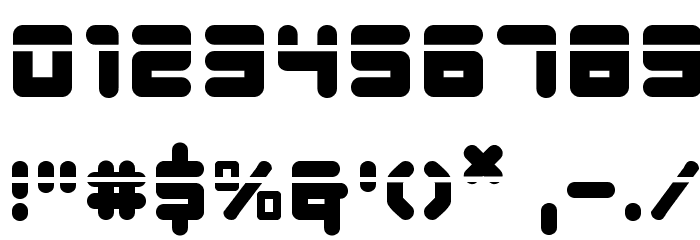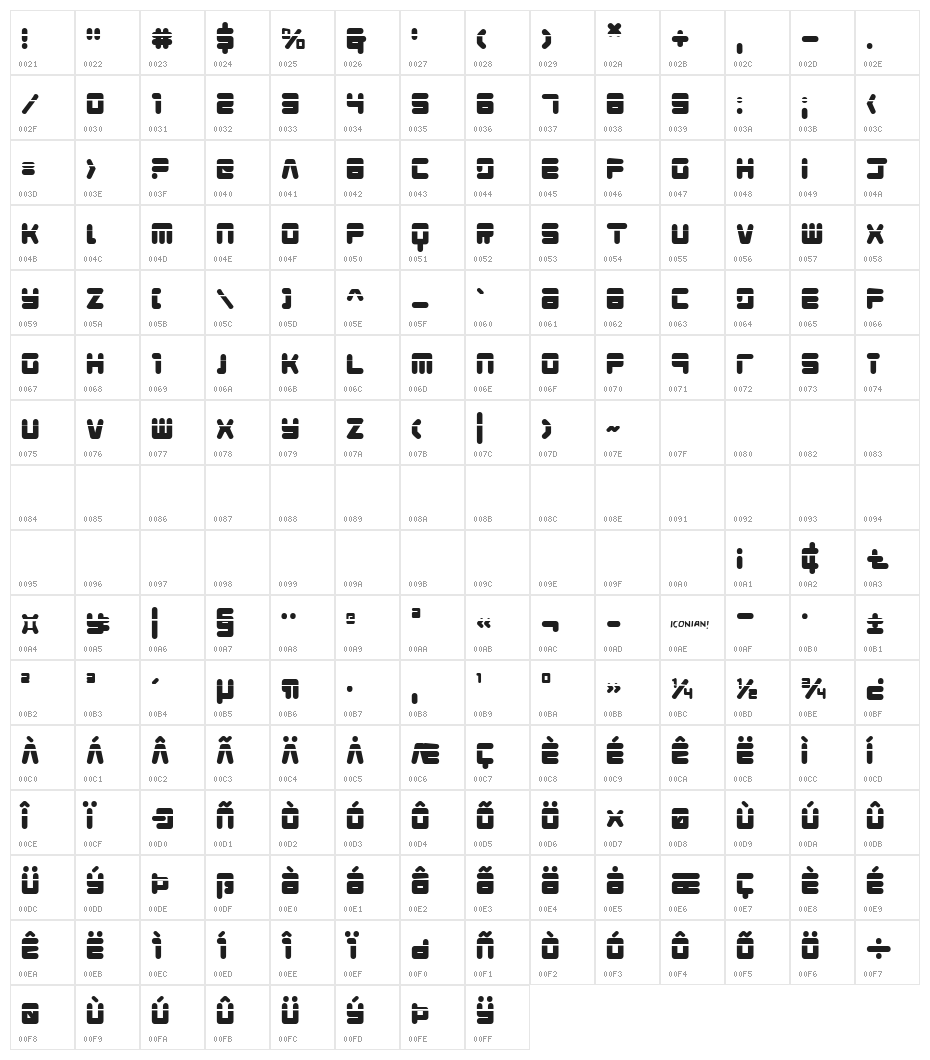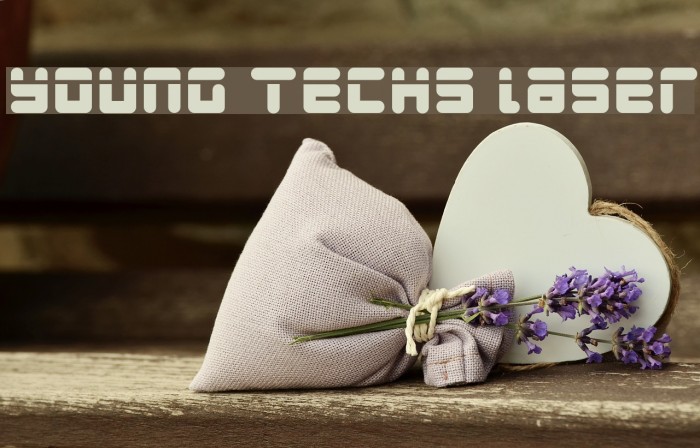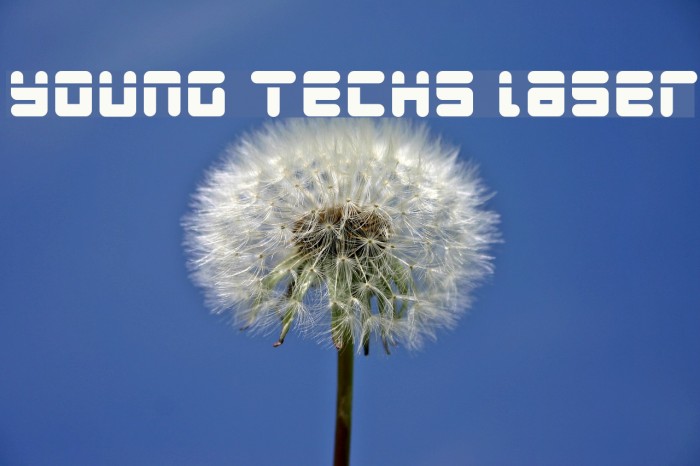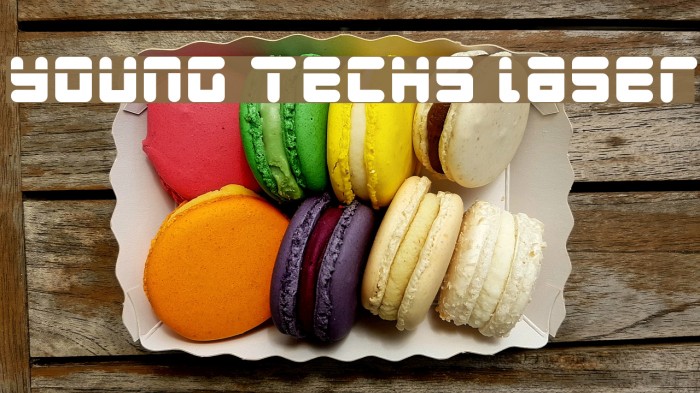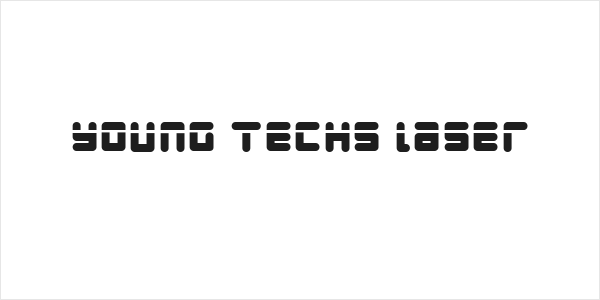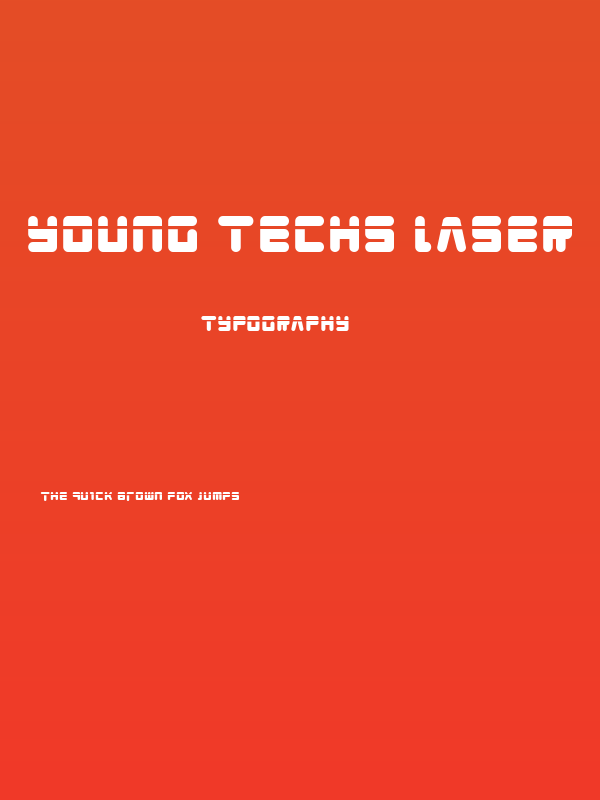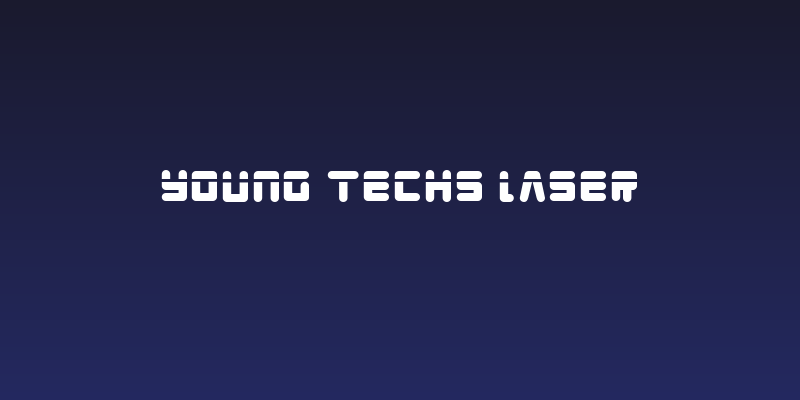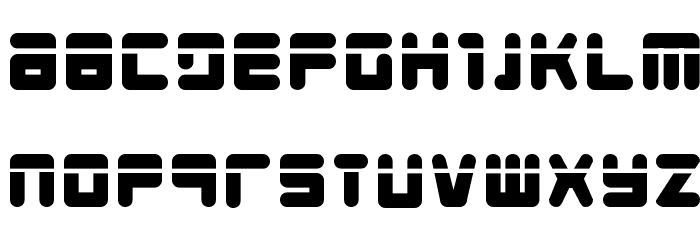
Young Techs Laser Font
Young Techs Laser Description
This font features a futuristic and tech-inspired design with bold, rounded characters. The letters are constructed with a stencil-like appearance, giving them a modern and industrial feel. The consistent thickness of the strokes adds to its robust and solid look, making it ideal for technology-related themes. The characters are evenly spaced, providing a clean and organized appearance. The font includes a full set of uppercase and lowercase letters, numbers, and a variety of special characters, making it versatile for various design needs.